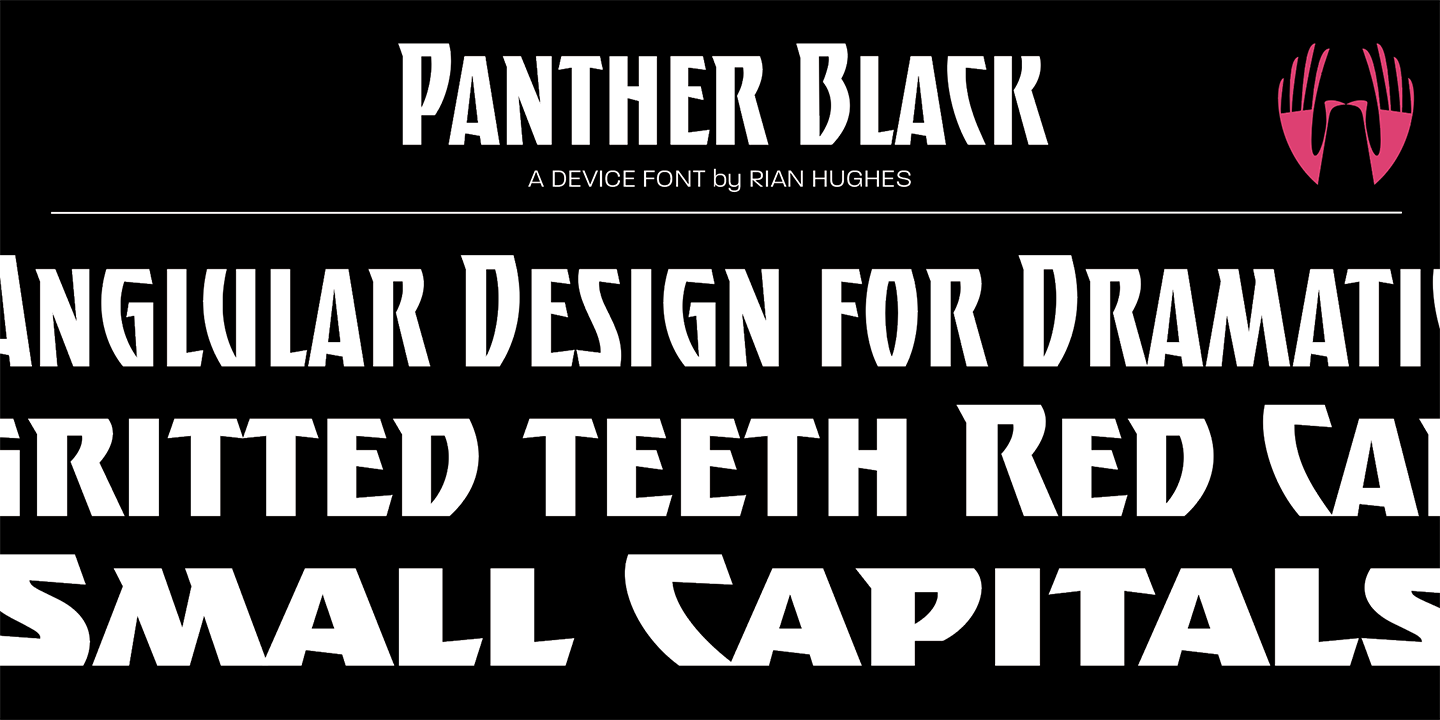
The Panther Black Font is a sleek, bold, and impactful sans-serif typeface, designed to convey strength, sophistication, and a powerful modern aesthetic. Imagine this font making a dramatic statement on luxury automotive branding, adding a commanding presence to high-end fashion advertisements, or bringing an undeniable sense of authority to sports team logos. Its sharp lines, often condensed proportions, and strong geometric foundation make it an excellent choice for dynamic headlines, impactful signage, and any project where a sense of cutting-edge design and unwavering confidence is paramount. Panther Black Font is also perfectly suited for movie titles, event promotions, and any visual content that demands attention with its unyielding and stylish presence.
What makes Panther Black Font so exciting is its immediate ability to command the spotlight and inject designs with a powerful, contemporary energy. It possesses an undeniable visual force that makes your message feel solid, assertive, and undeniably chic. The meticulous design, often with subtle optical adjustments to ensure visual perfection, contributes to its polished and memorable appearance. This font doesn't just display words; it projects them with an air of sophisticated strength and modern aggression, making every headline feel impactful and memorable. Its inherent design ensures your visuals will resonate with an audience that appreciates bold, clean aesthetics and a strong brand voice.
The Panther Black Font family is typically designed to offer versatile options for impactful typography. You'll often find a core Panther Black Font Free Download Regular weight that embodies its signature robust style. Additionally, this family often includes valuable variations such as a Panther Black Condensed version for tighter spaces or a more streamlined look, and an Extended version for a broader, more expansive presence. Some professional sets might also include an Italic version to add a sense of motion or emphasis. These different weights and widths allow for immense flexibility, ensuring that Panther Black Font can effectively carry various levels of hierarchy within a design, from a dominant primary statement to supporting information, all while maintaining its consistent and commanding visual identity.